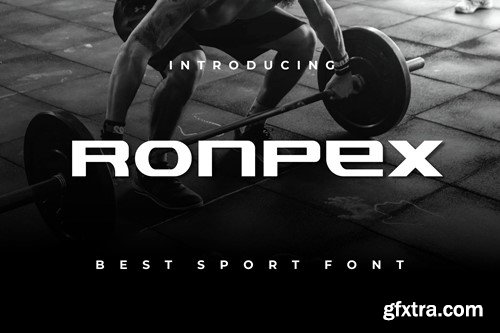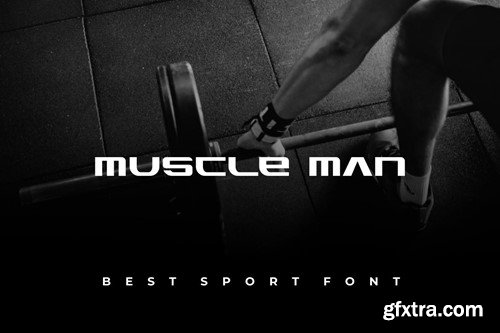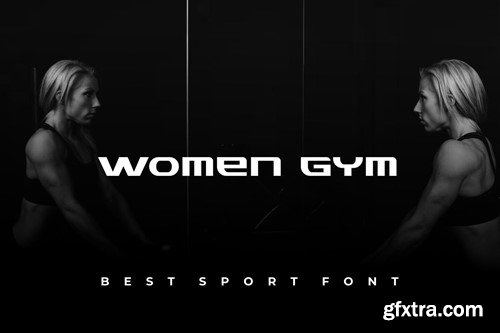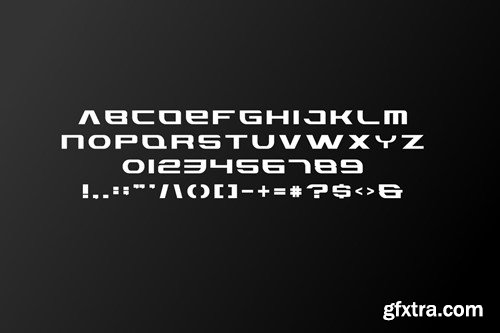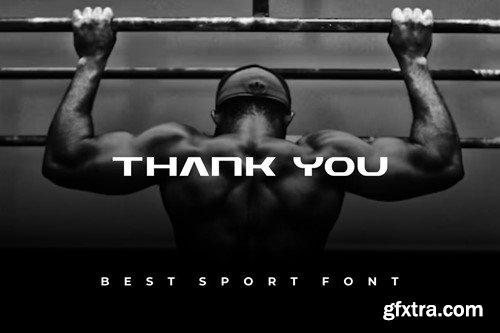
Ronpex Font
Introducing our new product Ronpex Font - Modern Font is a bold and authentic display font. The font is suitable for any branding project like logo, esport, and many more. outstanding in a wide range of contexts. availlable